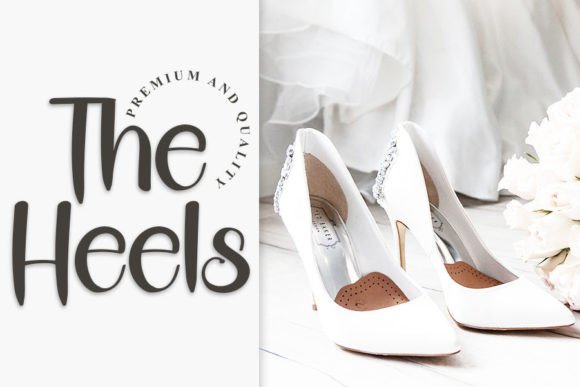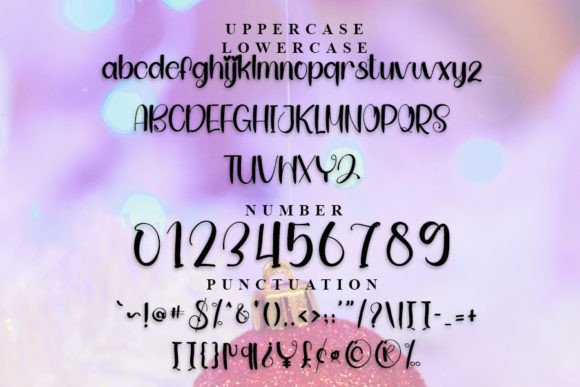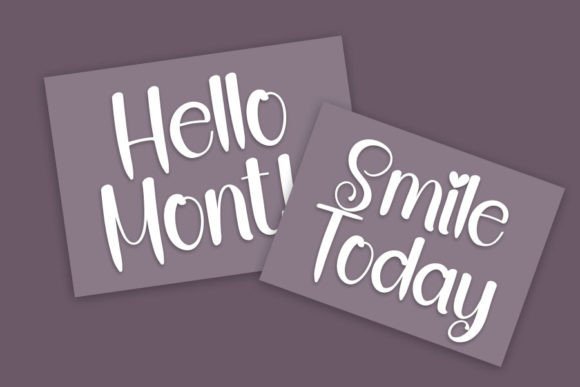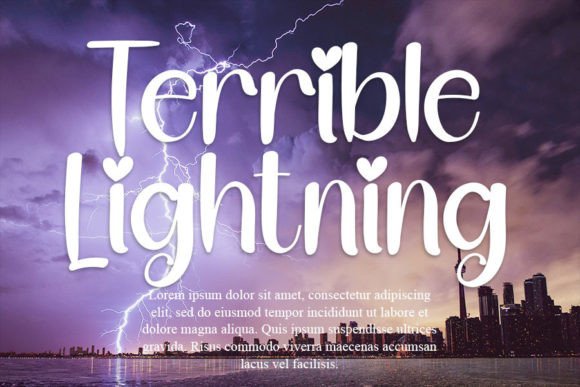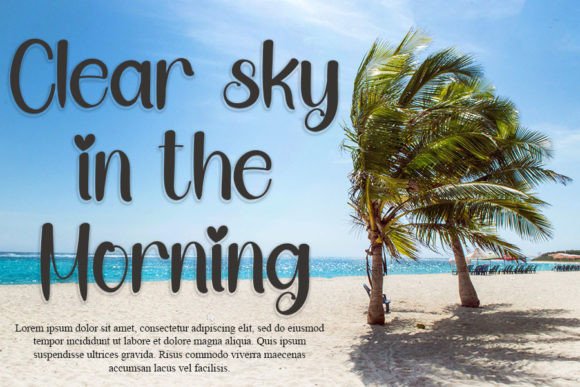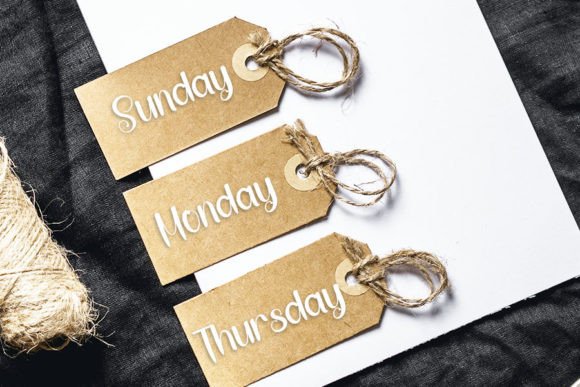
Bubbles Christmas Font
Add a stylish and elegant touch to your holiday projects with the Bubbles Christmas font. This handwritten script combines a contemporary atmosphere with impeccable form, inspired by timeless classic calligraphy. It is perfect for enhancing the beauty of your Christmas-themed designs.
The Bubbles Christmas font offers a balanced and varied style, making it suitable for a wide range of creative projects. Use it for holiday cards, gift tags, logos, branding, posters, invitations, and more. This font adds sophistication and charm to every creation.
Each character in the Bubbles Christmas font is carefully crafted with smooth, flowing strokes. This creates a polished yet warm appearance that balances tradition and modernity. The font maintains excellent readability while delivering a festive and refined feel.
Despite its elegant style, the Bubbles Christmas font remains clear and readable at various sizes. Whether used for bold headlines or subtle accents, it adapts perfectly to your creative needs.
Using this font will help your holiday designs stand out with a classy and memorable style. If you want your Christmas projects to look festive and beautiful, the Bubbles Christmasfont is an excellent choice.
In summary, the Bubbles Christmasfont fits many creative applications. From holiday cards and invitations to branding and packaging, it brings style and elegance. Download it today and create stunning, festive designs with this stylish handwritten script.